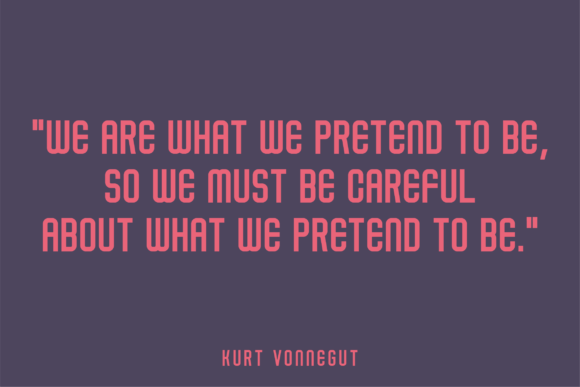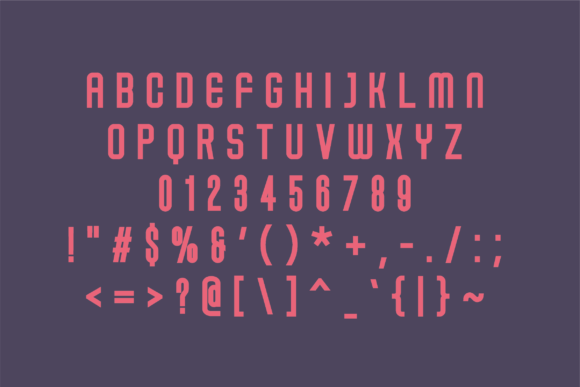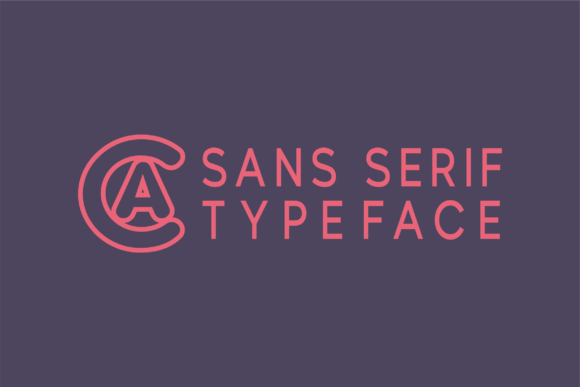
Introduction to Insouciance Font
Remember the moment when your creative idea strikes you, and you can’t wait to bring it to life? That’s exactly what happens when you stumble upon the perfect design resource. For designers and creatives, finding the right font can be the difference between a mediocre project and a masterpiece. This is where the Insouciance Font comes in – a versatile, modern, and classy sans serif font that’s sure to elevate your creative project.
Whether you’re working on a logo, wedding invitation, or magazine article, the Insouciance Font is a high-quality design resource that’s perfect for any occasion. With its transparent background and clean lines, it’s a free download that’s sure to add a touch of sophistication to your design. And the best part? It’s free to download, making it an invaluable resource for designers of all levels.
So why settle for a bland, generic font when you can have the Insouciance Font? Add it to your design arsenal today and watch your creative ideas come alive in a whole new way.
Key Features of Insouciance Font
- Unique and stylish design for creative projects, offering a perfect blend of elegance and sophistication.
- High-quality font with transparent background, ideal for use on various design resources, including websites, social media, and marketing materials.
- Available in a range of sizes and resolutions, ensuring seamless use in various design contexts.
- Perfect for designers looking for a versatile and stylish font to elevate their creative projects.
Honest Review: Insouciance Font
I recently had the chance to work with the Insouciance Font, and I must say it’s been a game-changer for my creative projects. This font is a must-have for any designer looking for a high-quality, unique design resource.
- ✨ Unique style that adds a touch of elegance to any design
- ✨ High quality, with clear and crisp letterforms
- ⚠️ Limited character set, which may be a concern for designers working on complex projects
- ⚠️ Not as versatile as some other fonts, may not be suitable for all design styles
Overall, I’m impressed with the Insouciance Font and would highly recommend it to designers looking for a unique and high-quality design resource. It’s perfect for creative projects where a touch of sophistication is needed.
Insouciance Font
The Insouciance Font is a high-quality, free download design resource perfect for creative projects. Its unique style and transparent background make it an ideal choice for designers looking to add a touch of elegance to their work.
Tips for Getting the Most Out of Insouciance Font
To get the most out of the Insouciance Font, try experimenting with different font sizes, colors, and combinations to create a unique and eye-catching design. You can also use the font’s transparent background to create a sense of depth and layering in your designs.
The Insouciance Font is perfect for a variety of creative projects, including branding, marketing materials, and editorial design. Its high-quality typography and transparent background make it an ideal choice for designers looking to create sophisticated and elegant designs.